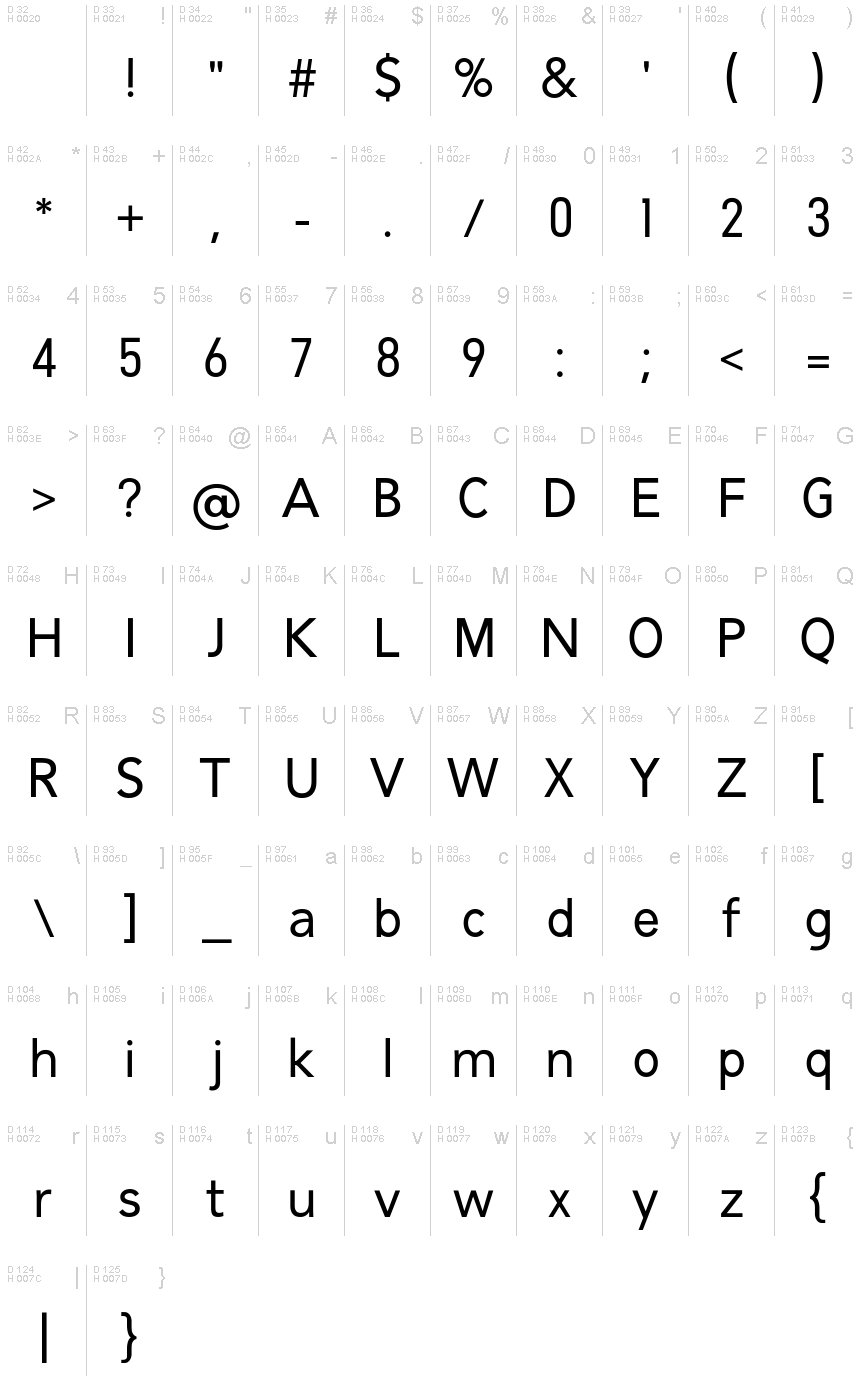
Gabiant Regular
Gabiant, a striking sans-serif font designed by UI Creative, exudes a bold and modern elegance. With its clean lines, sharp edges, and harmonious proportions, this typeface commands attention, making it a compelling choice for a wide range of design applications. The font's distinctive character, combined with its exceptional legibility, lends an air of sophistication and refinement to any project.
This versatile font shines in branding, digital interfaces, editorial layouts, and beyond. Its adaptable nature allows it to seamlessly integrate into diverse design contexts, from sleek corporate identities to dynamic web designs and impactful marketing materials. Gabiant's inherent versatility makes it an invaluable asset for designers seeking to elevate their work with a touch of timeless, yet contemporary style.